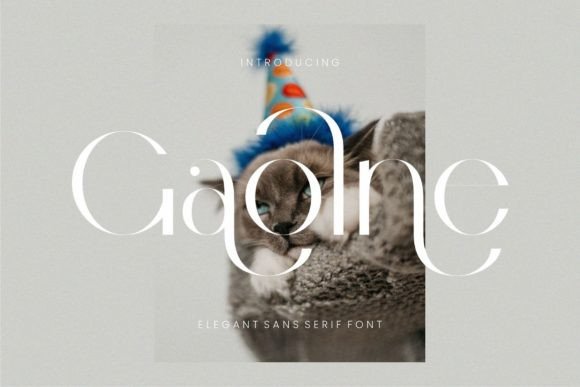
Welcome to the world of Gaolne Font, a creation by Alfinart that will bring a unique touch of charm and sophistication to all your creative endeavors. This sans-serif font carries a fashionable aura, making it the perfect choice for bringing a modern and trendy aesthetic to your designs.
Gaolne Font is designed to capture the hearts of those seeking a font that can elevate their projects to new heights of elegance and luxury. Its beautiful curves and delicate letterforms dance across the page, creating a visual experience that is both captivating and timeless.
Step into the realm of elegance with Gaolne Font. This font is ideal for crafting stylish logos, eye-catching posters, breathtaking brochures, or simply adding a touch of sophistication to your everyday designs. It's a font that will make a statement wherever you choose to use it.
Unleash your creativity and let Gaolne Font guide you through a world of boundless possibilities. Its delicate lines will leave a lasting impression on your audience, making it a font you'll want to return to time and again.